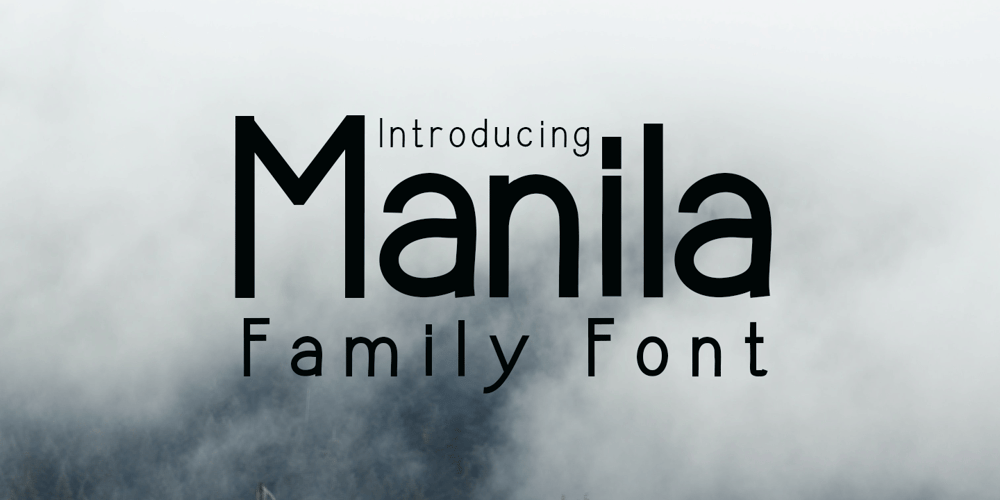
Manila
Manila font
Manila Font Family was designed by Nasrullah and published by Sulthan Studio. Manila contains 6 styles and family package options. Sans serif font family with a minimalist style has 6 thickness styles, I hope this will please you in preparing your work with this elegant font. which can be used in various projects, wedding invitations, magazine headlines, social networks, signage, etc.